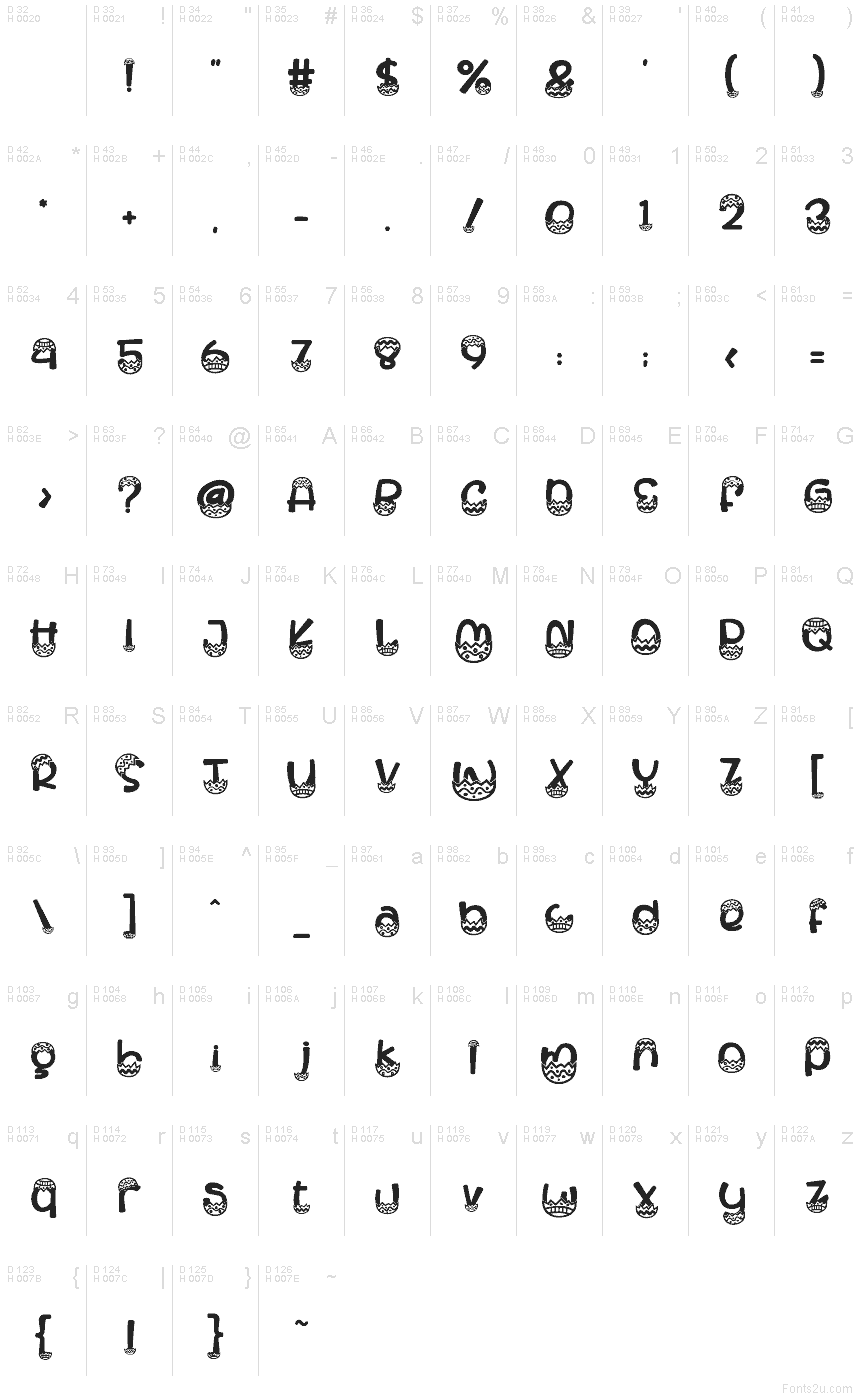
Pastel Palooza Crackegg
Pastel Palooza Crackegg font by PutraCetol Studio is a decorative typeface combining whimsical elements with holiday-style Easter-themed fills. Its contrasting textures, ornamental shapes, and repetitive motifs bring out creativity to the ideas it helps bring to life. The character design for this typeface makes the experience of reading remarkably different.
Use Pastel Palooza for fun applications like Easter cards, gift coupons, educational projects for students (children or teens), packaging designs specifically related to Easter contests or other events, book covers; or more pure design purposes like posters or social media posts.